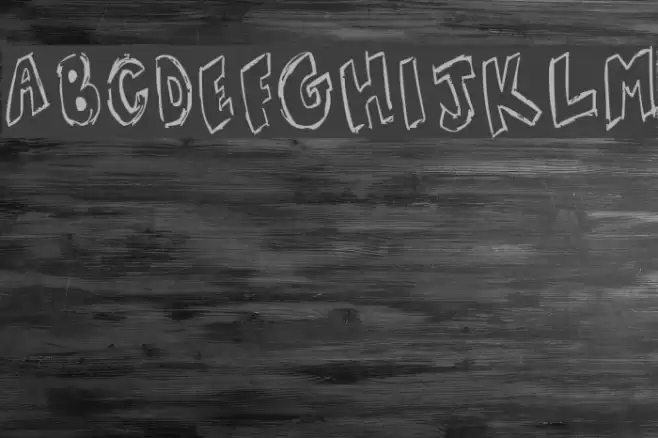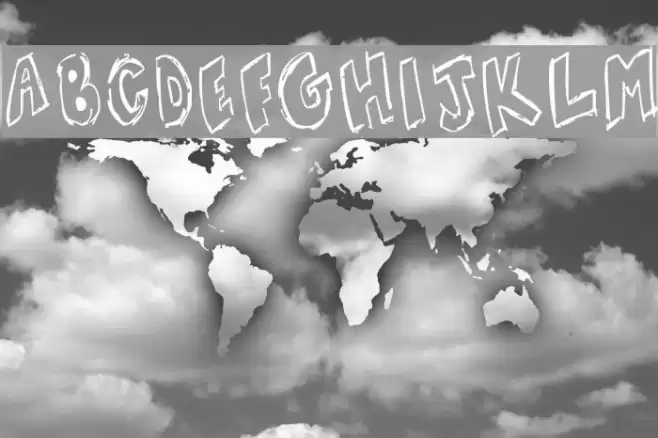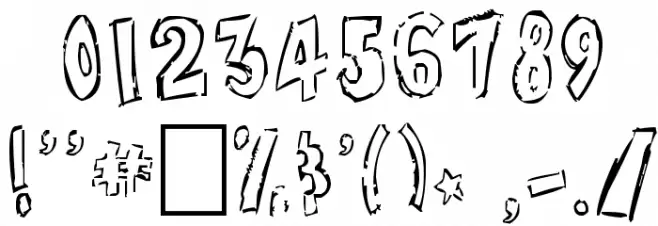
Chloe Font Font
Chloe Font Description
This font features a playful and dynamic style with a hand-drawn appearance. The letters are bold and slightly irregular, giving them a whimsical and artistic feel. The strokes are thick and uneven, with a sketch-like quality that adds to its charm. The uppercase and lowercase letters maintain a consistent style, while the numbers and special characters follow the same playful design. This font is perfect for projects that require a fun and informal touch, such as children's books, posters, or creative branding.
A playful, hand-drawn font with bold, sketch-like strokes from Uncategorized fonts.
- Proposed Projects: Ideal for children's books, playful posters, creative branding, and informal invitations.
- Overall Style: Playful, Artistic
- Use Case: Headlines, Posters, Creative Branding